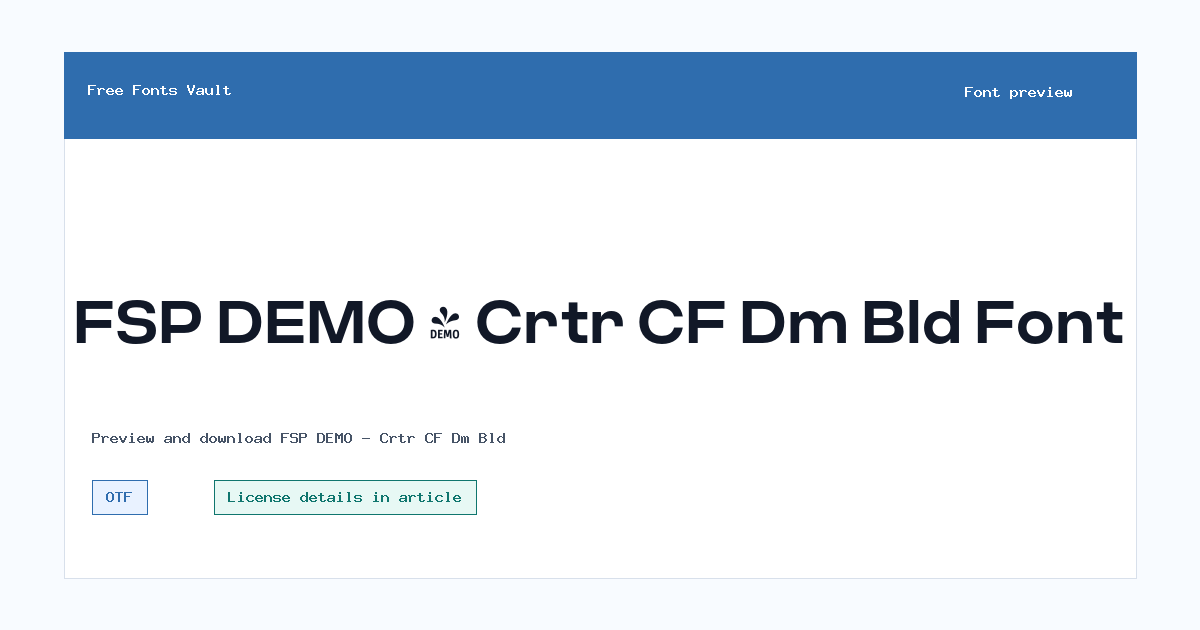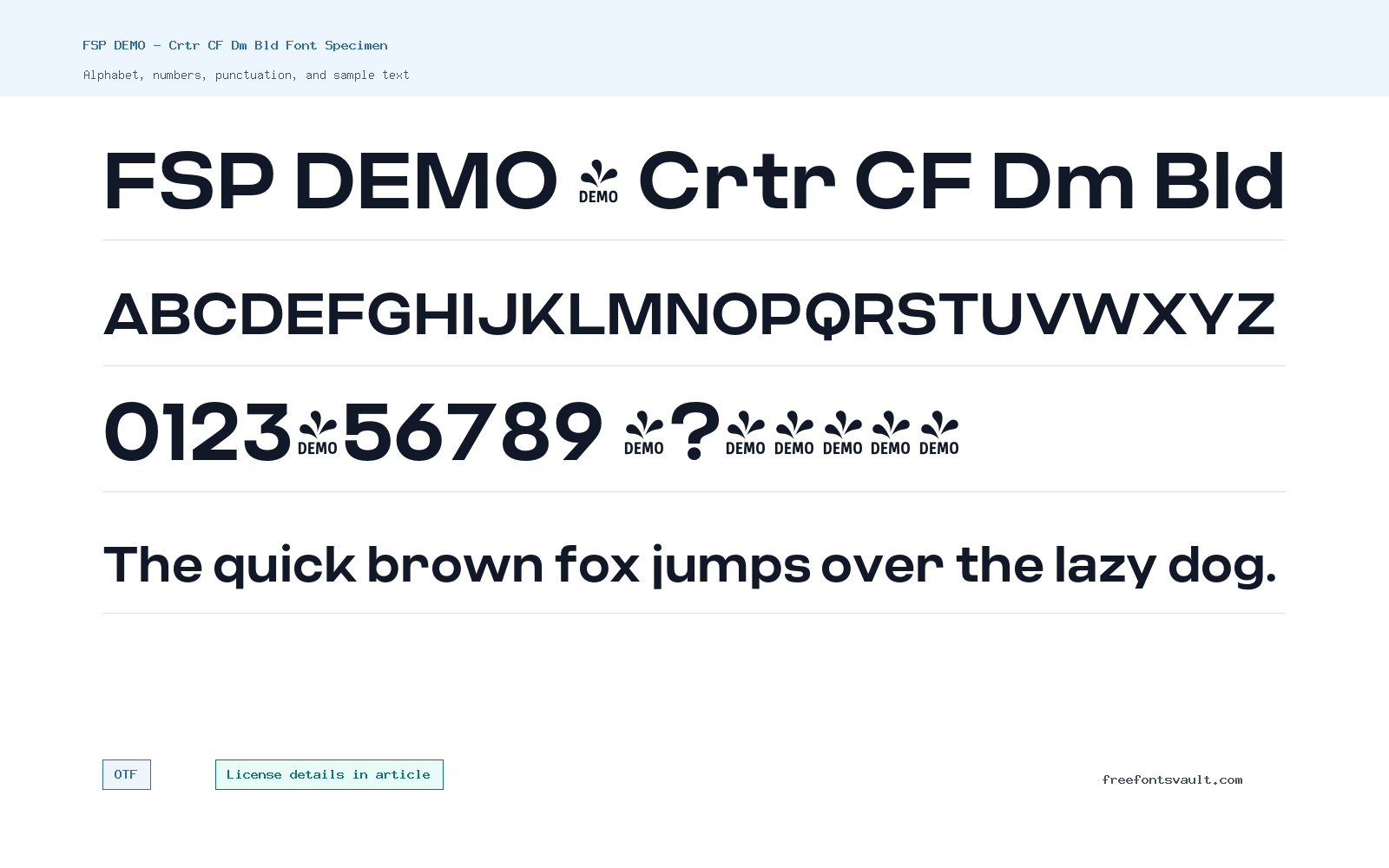
FSP DEMO - Crtr CF Dm Bld
FSP DEMO - Crtr CF Dm Bld font preview showing the family name
FSP DEMO - Crtr CF Dm Bld font specimen showing alphabet, numbers, and sample text
• Designer Connary Fagen
• Foundry Connary Fagen
FSP DEMO – Crtr CF Dm Bld is a demi-bold OTF demo font for short text that needs more weight than regular copy without becoming fully heavy.
This entry is listed with the file criteriacf-demibold.otf, normal style, and a 600 weight. The shortened title appears to refer to a demi-bold cut, and Connary Fagen is credited as designer and foundry. Because the page title includes demo wording, treat it as a preview or trial-style font unless the package proves otherwise.
A 600 weight can be very useful in layout work. It gives headings, labels, buttons, posters, and social graphics more authority than a regular style, while staying less forceful than a full bold. That makes it a practical test font for interface accents, section titles, editorial cards, and brand mockups where the text must stand out cleanly.
Preview your exact phrase before downloading. Demi-bold fonts can look balanced in headings but dense in longer paragraphs, especially when the line is narrow or the design uses many uppercase letters. For readable layouts, pair it with a lighter companion font for body copy and keep this cut for emphasis.
• Normal upright style with a 600 demi-bold weight
• Designer and foundry credited to Connary Fagen
• Useful when headings need medium-heavy emphasis
• Headlines, section titles, and editorial cards
• Labels, buttons, interface accents, and navigation tests
• Poster text, social graphics, and short promotional copy
• Brand mockups where a demi-bold tone is needed
• Comparing mid-heavy typography before final font selection
Use this font where a 600 weight improves hierarchy: headings, labels, and compact display lines. If the page or graphic needs paragraphs, pair it with a lighter text font and keep the demi-bold style for structure.
What kind of font is FSP DEMO – Crtr CF Dm Bld?
It is listed as an upright OTF font with a 600 demi-bold weight, useful for headings, labels, buttons, and short display text.
Who is credited for this font?
Connary Fagen is listed as designer and foundry.
What should I test first?
Preview your real heading, interface label, or short phrase, then check spacing at the final size and with the companion font you plan to use.